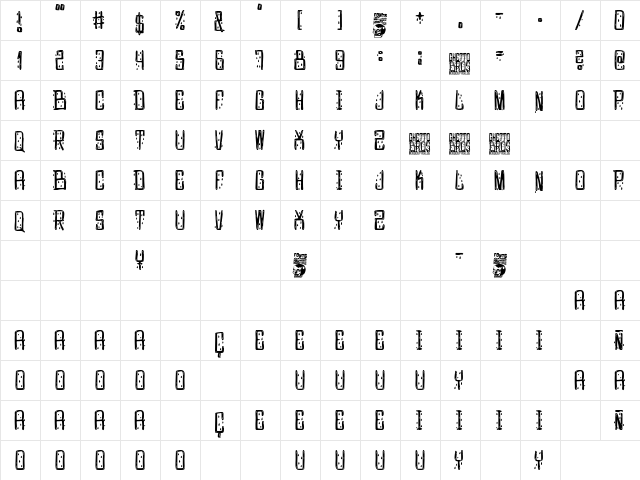
Ghetto bros Regular
Design Context for Ghetto bros Typeface
Ghetto bros is a composed and adaptable typeface that performs quietly and consistently across a wide range of design contexts.